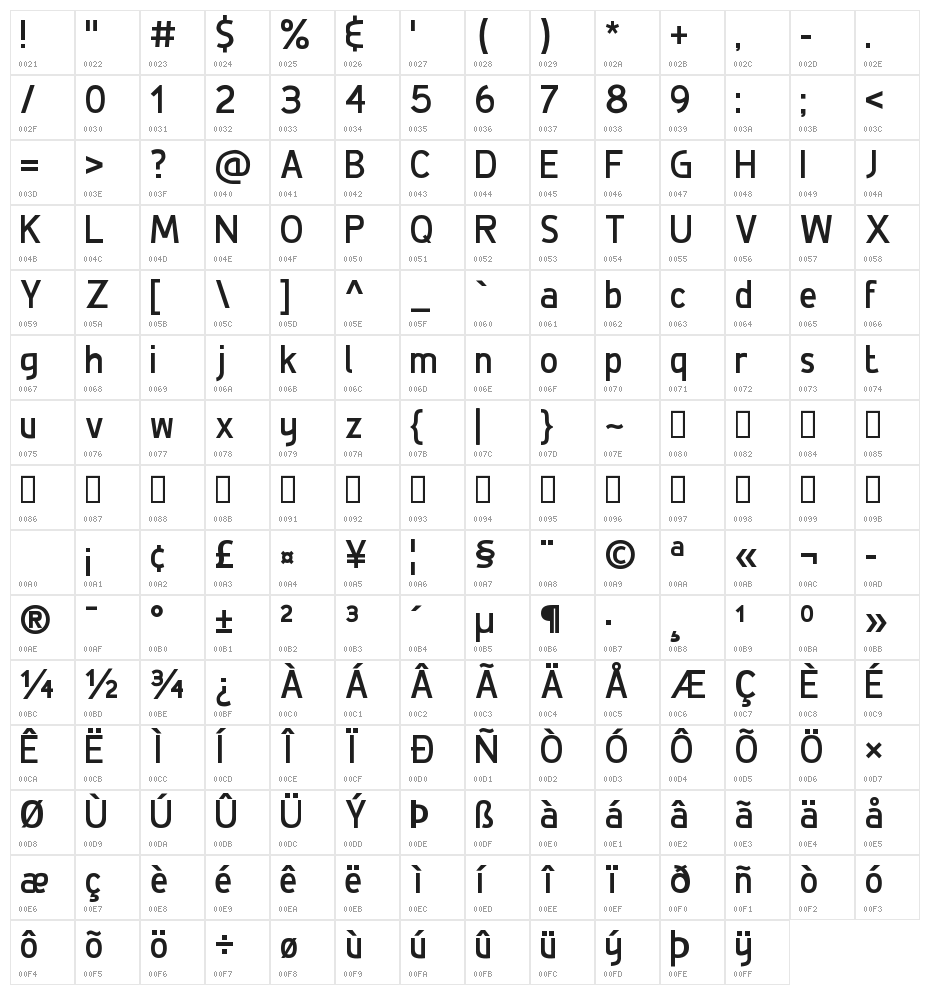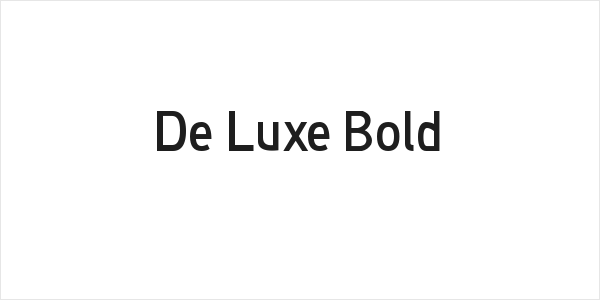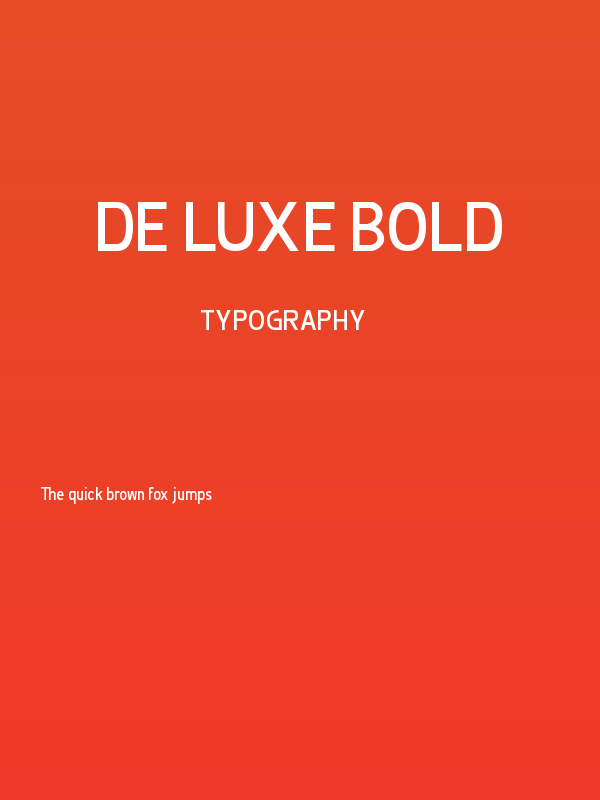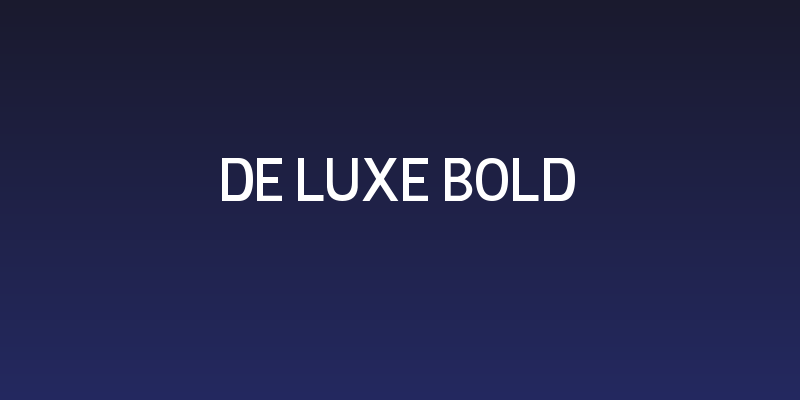
De Luxe Bold Font
De Luxe Bold Description
This font features a clean and modern sans-serif design with a bold weight, making it highly legible and impactful. The characters are evenly spaced with a normal width, providing a balanced and harmonious appearance. The uppercase letters are strong and assertive, while the lowercase letters maintain a smooth and consistent flow. The numerals are clear and distinct, ensuring readability in various contexts. Special characters are well-integrated, enhancing the font's versatility. The overall style is contemporary, suitable for a wide range of applications.
| Proposed Projects | Ideal for branding, advertising, headlines, and digital media where a strong and modern presence is desired. |